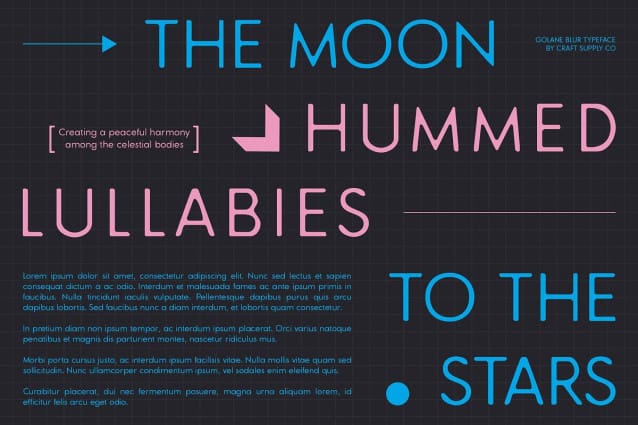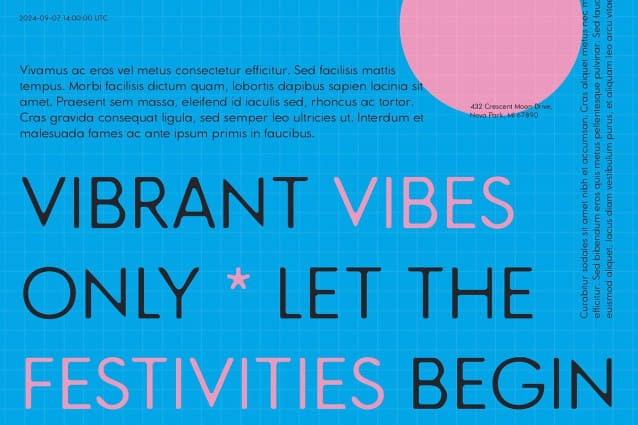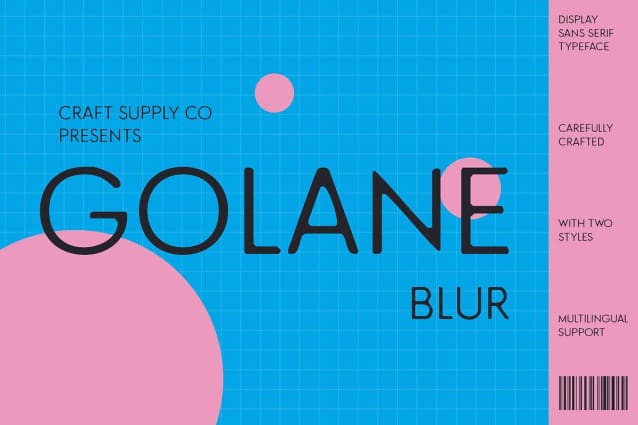
Golane Blur Font
Golane Blur Font is a modern sans-serif font characterized by its geometric shapes and well-structured design. The geometric form imparts a clean, professional appearance that is perfect for contemporary designs requiring a touch of precision and sophistication.
Blur Effect for Visual Dimension The unique blur effect distinguishes Golane Blur from other sans-serif fonts. This subtle distortion creates a slightly hazy or softened appearance, adding a dynamic and futuristic dimension to the font. The blur introduces a sense of movement and depth, enhancing the visual impact of your design.
Futuristic and Artistic Touch Golane Blur combines a modern geometric structure with an artistic blur effect, resulting in a font that stands out with a futuristic flair. The hazy appearance not only contributes to a cutting-edge look but also brings an innovative and creative edge to various design projects.
Ideal for Contemporary and Innovative Designs This font is perfect for projects aiming to emphasize contemporary and forward-thinking elements. Whether used in digital branding, posters, or marketing materials, Golane Blur offers a striking and sophisticated choice that highlights modernity and creativity.